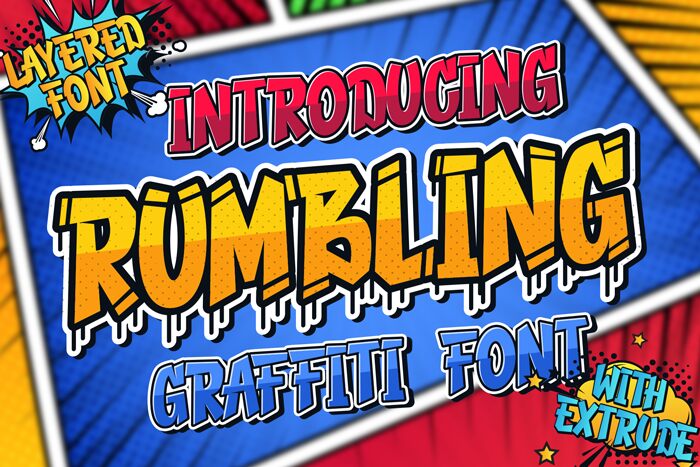
Rumbling Extrude
Rumbling Extrude is the ultimate graffiti font, designed by Hoperative. Its edgy and rebellious style makes it perfect for projects that require a bold statement. The extra-bold weight and semi-condensed width create a strong presence on any medium, from posters to album covers. This font is suitable for streetwear brands, music festivals, skateboarding events, and any other project that needs an urban edge. Rumbling Extrude will make your message stand out with its unique 3D extruded effect that adds depth to each character. Get ready to rumble with Rumbling Extrude!